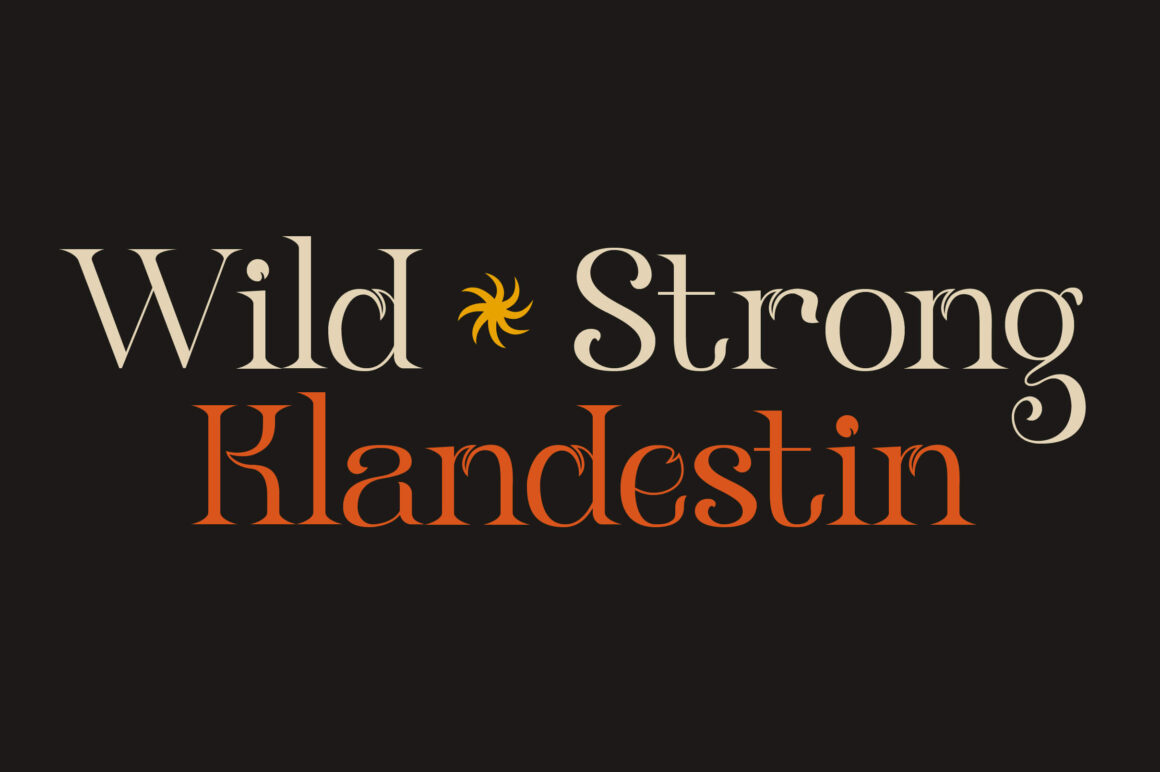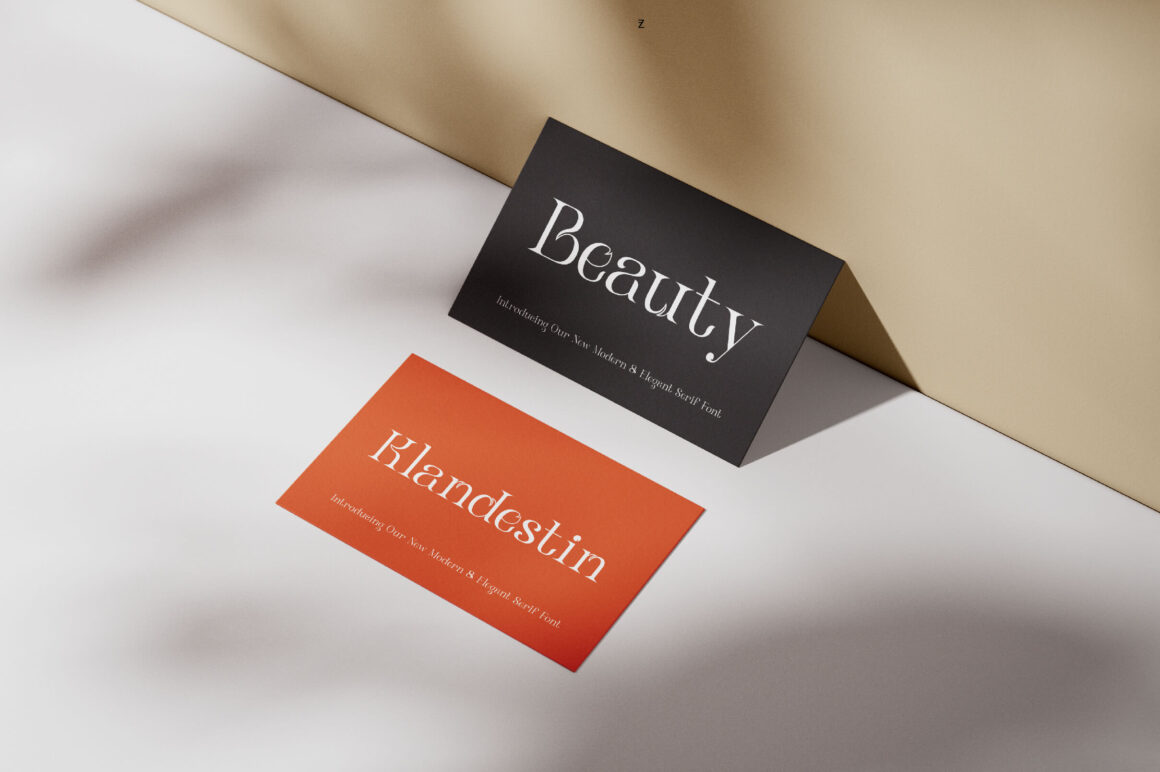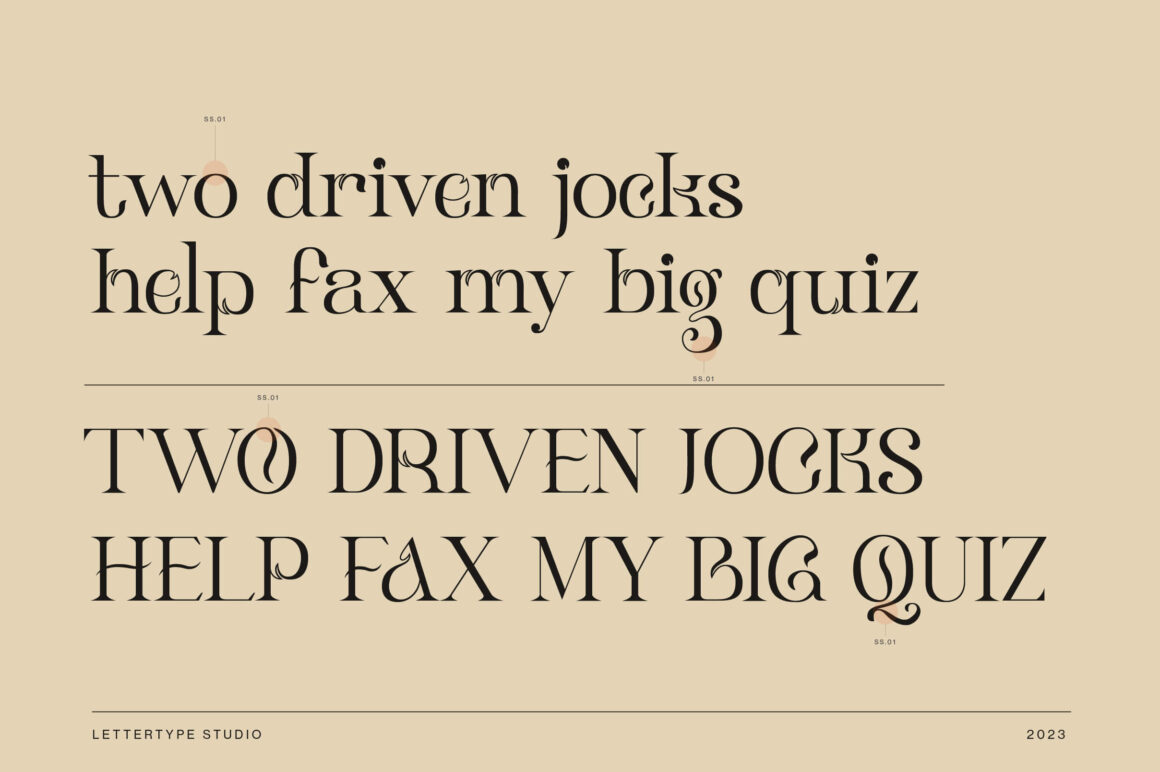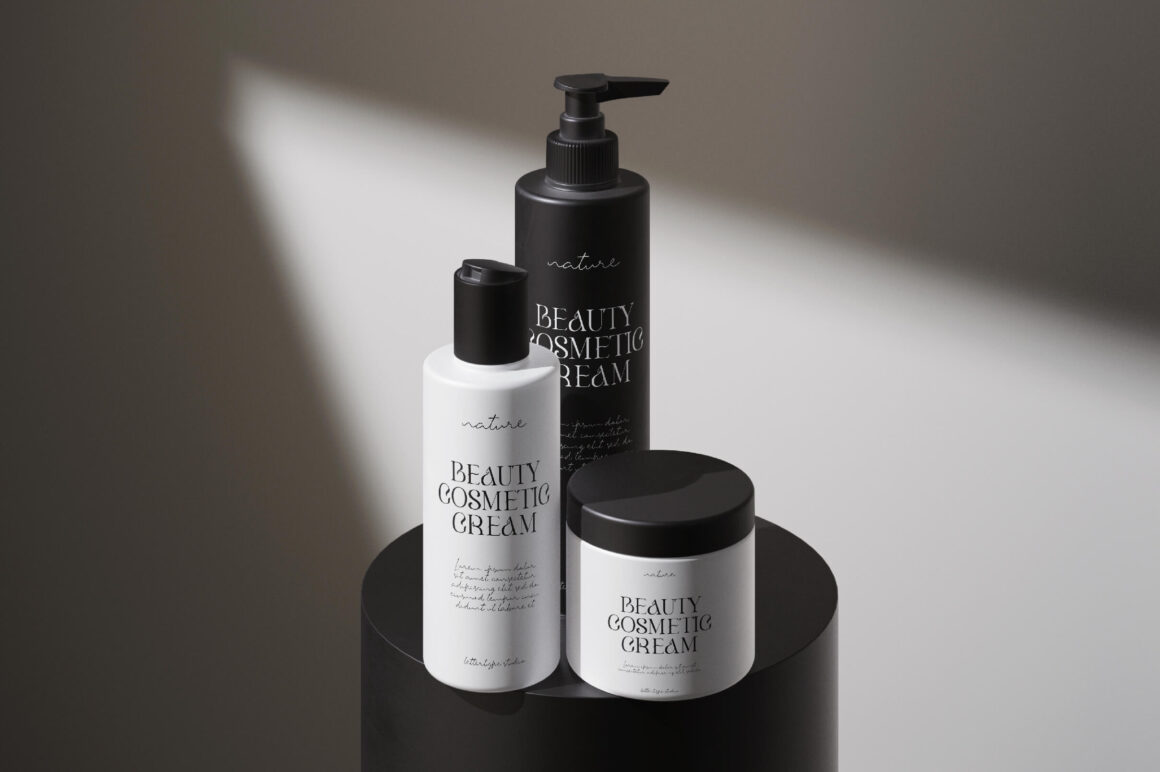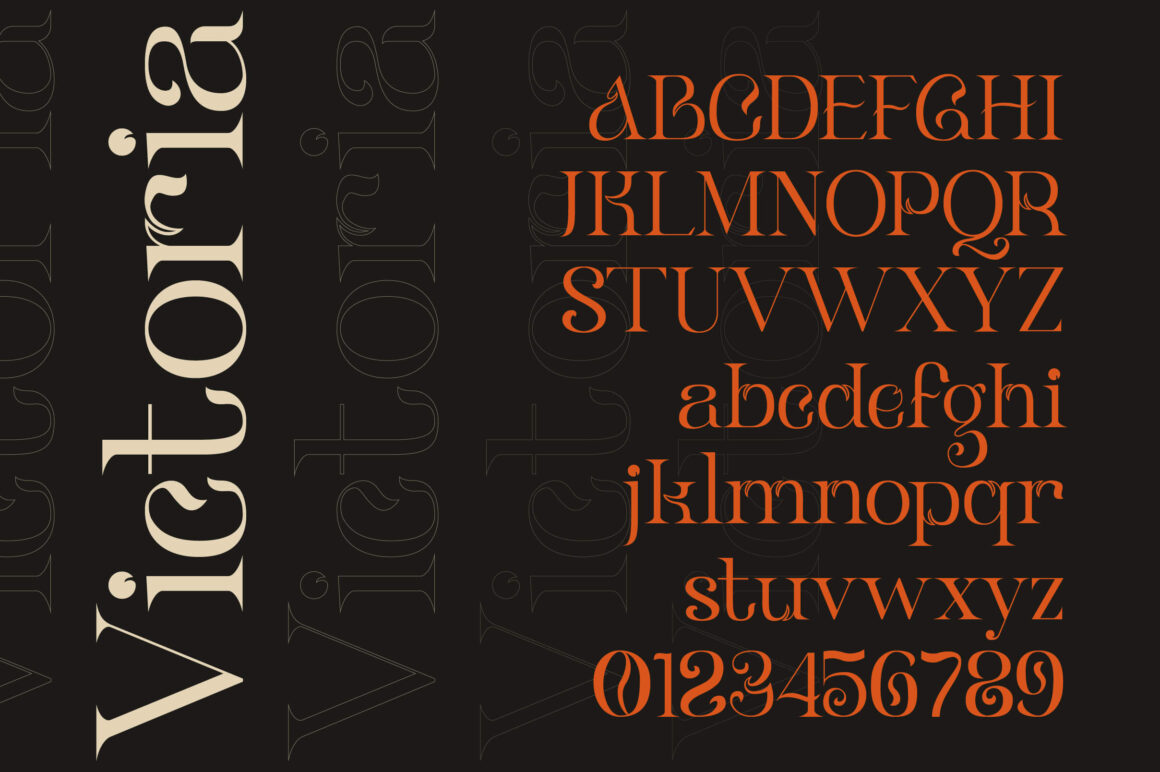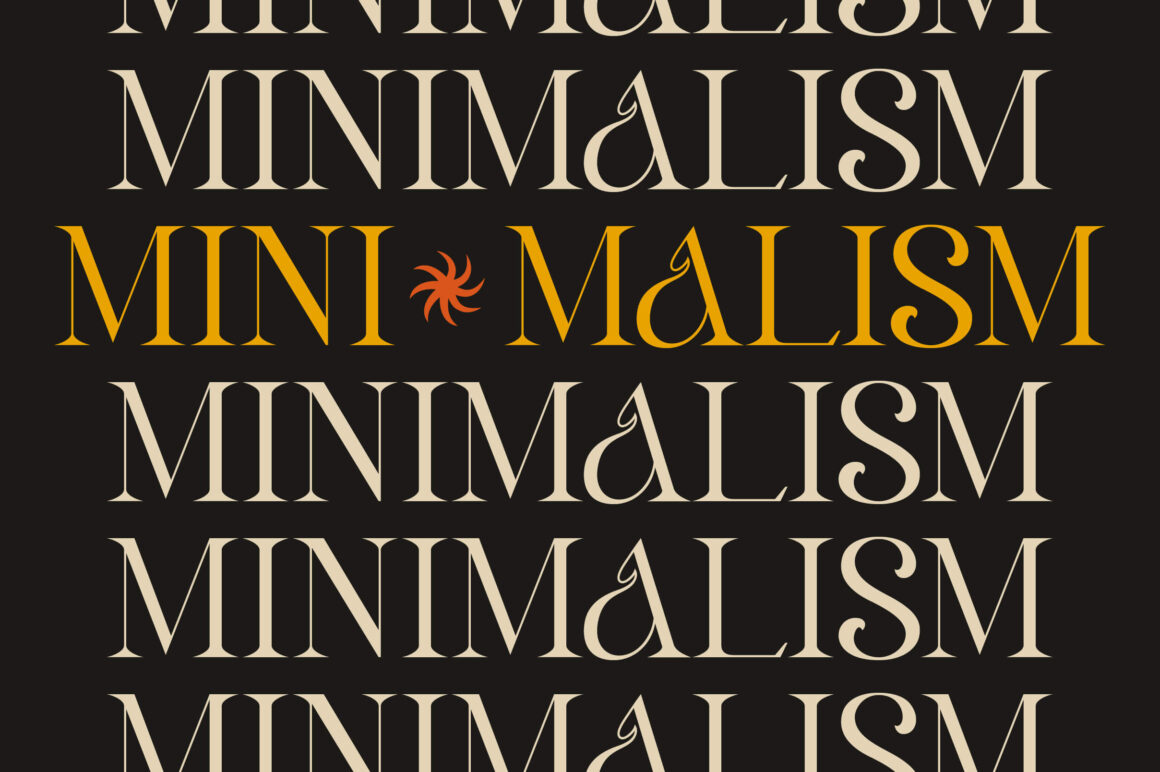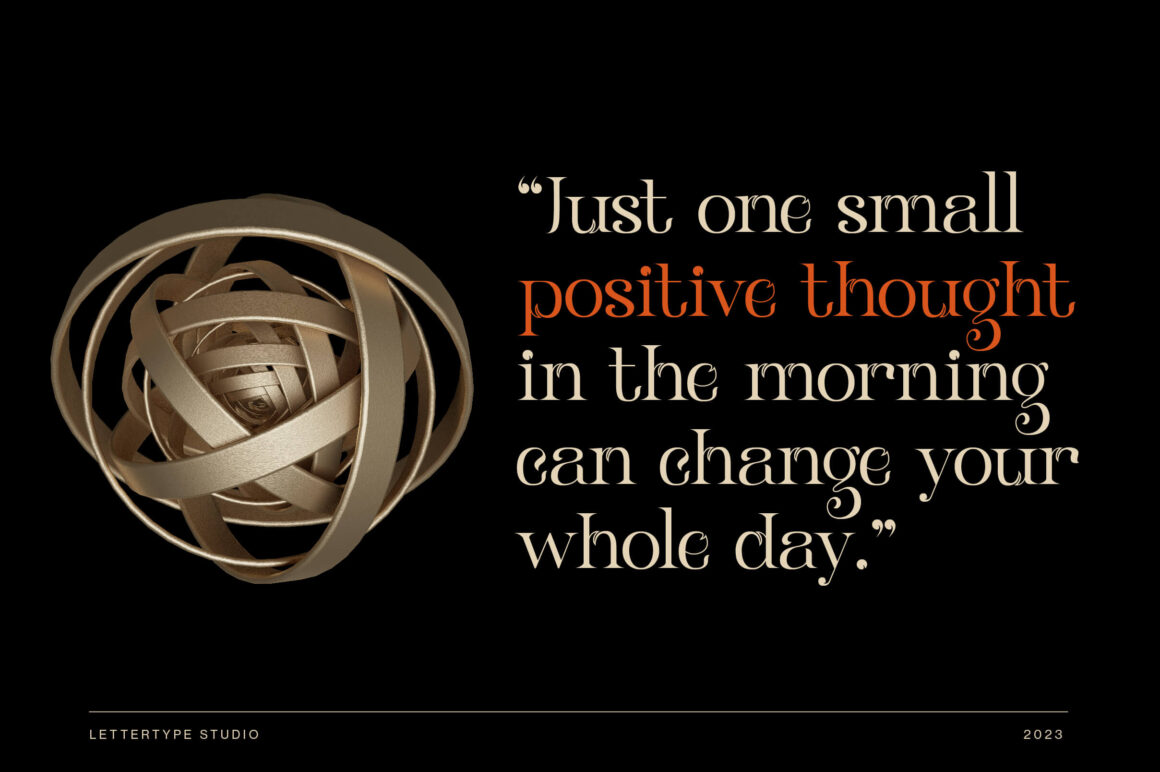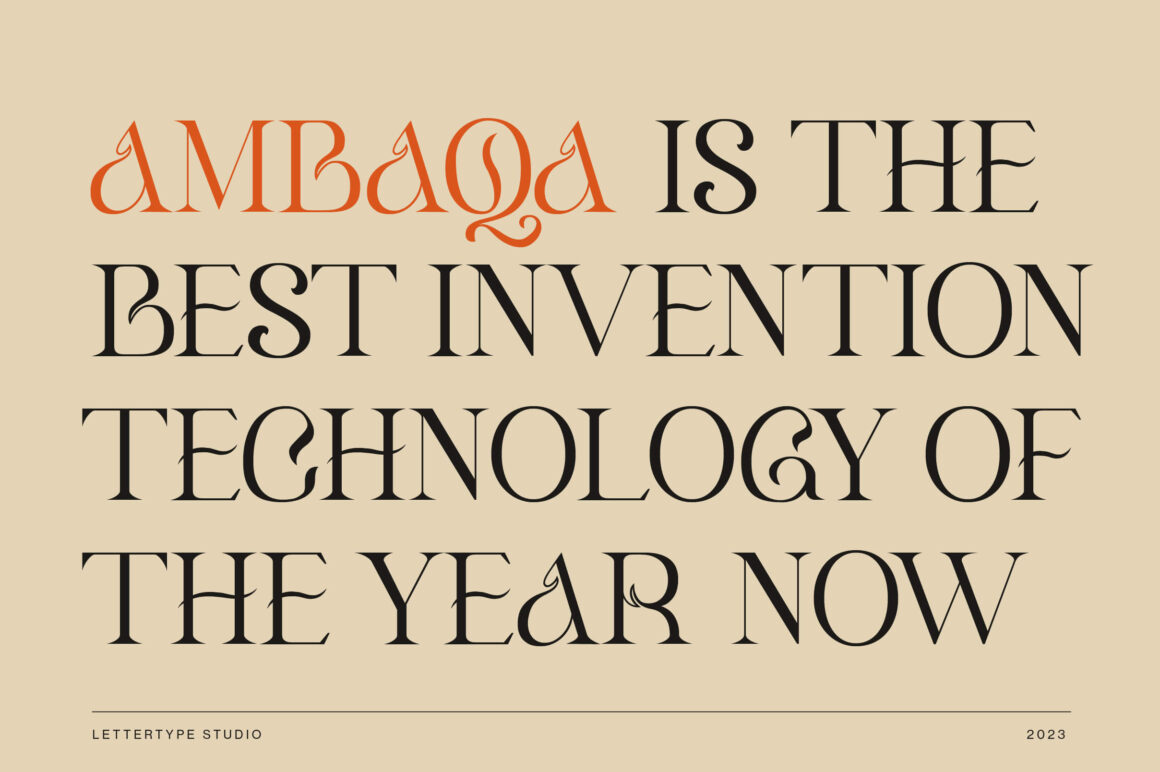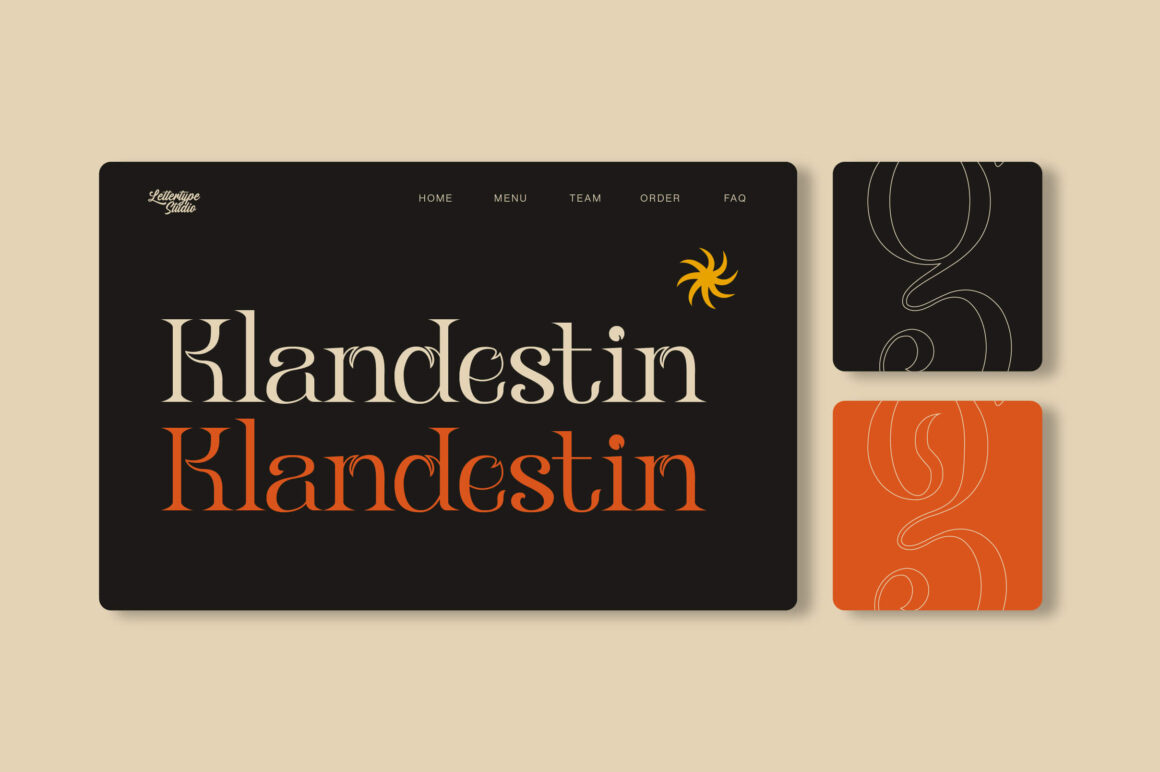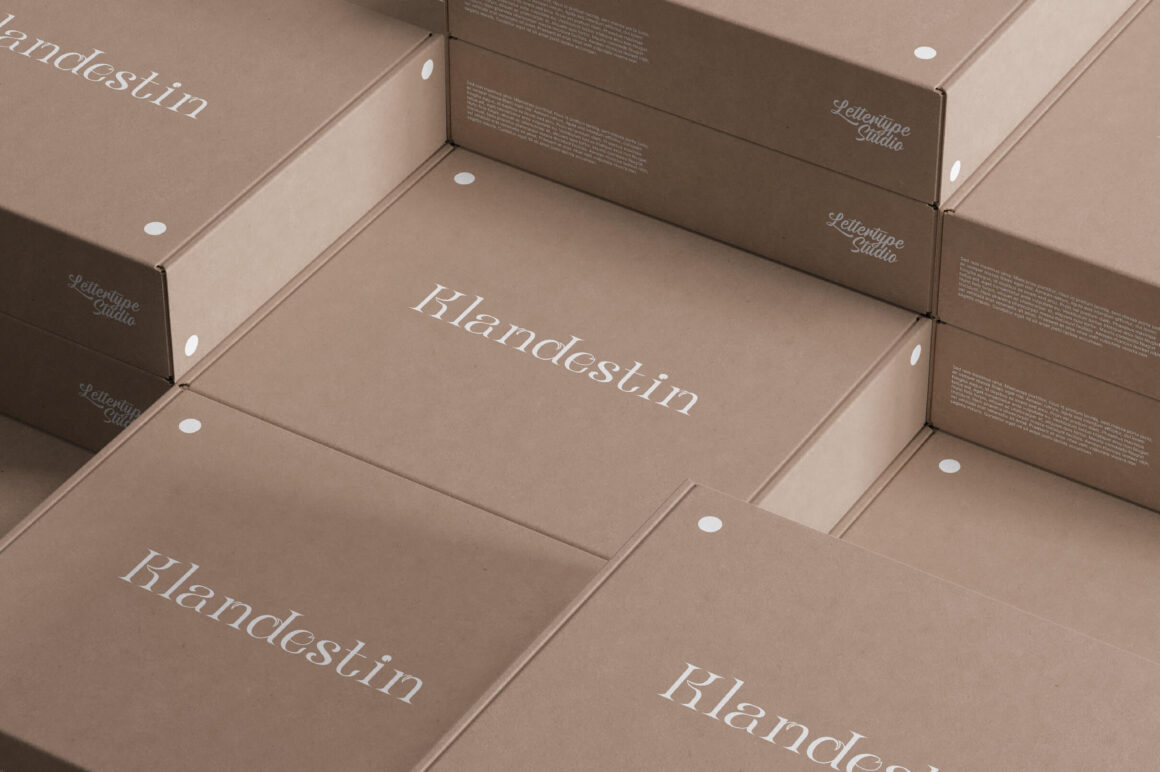
Klandestin
Klandestin Serif is a unique typeface that combines modern sophistication with classic elegance. Designed with standout details and stylish curves, this font adds a luxurious and distinctive feel to any project, making it ideal for designers who want to create a strong visual impact.
Perfect for logos, branding, fashion, cosmetics, signage, posters, and wedding invitations, Klandestin adapts seamlessly across a wide range of creative uses. Its bold yet refined personality ensures your work looks timeless, professional, and unforgettable.